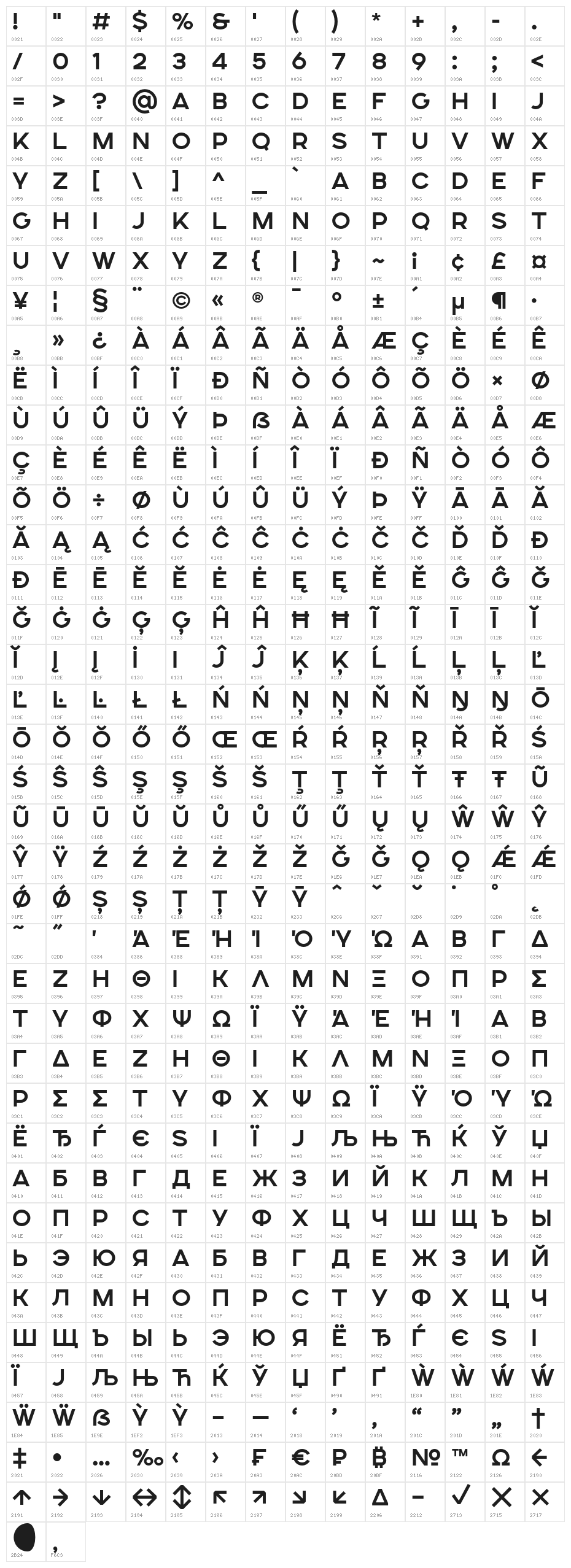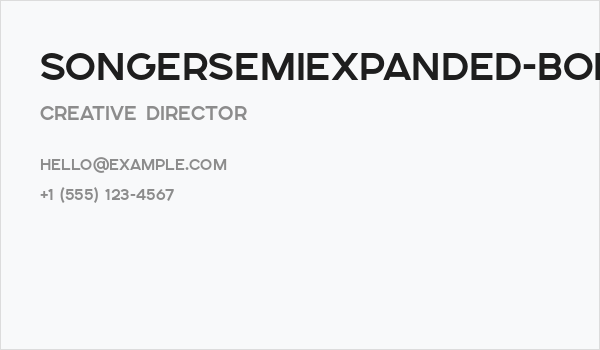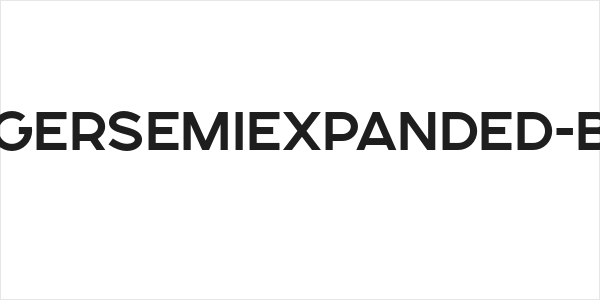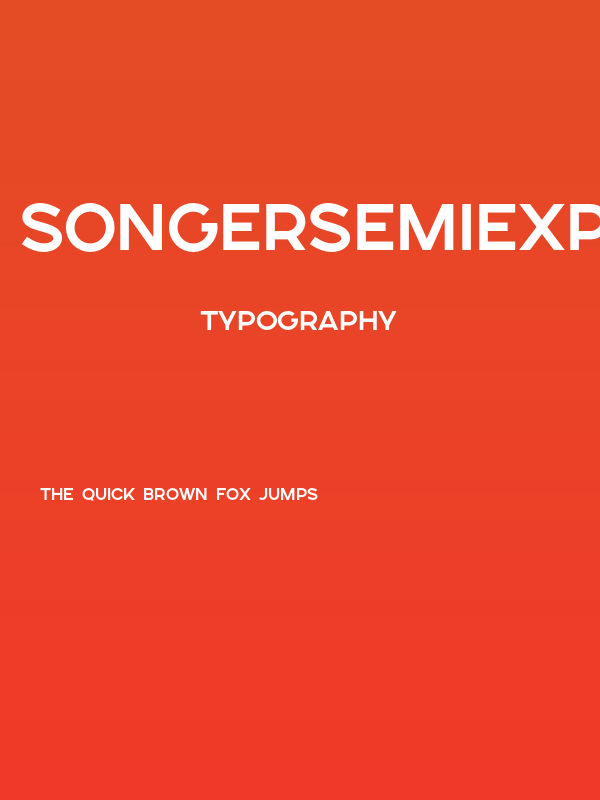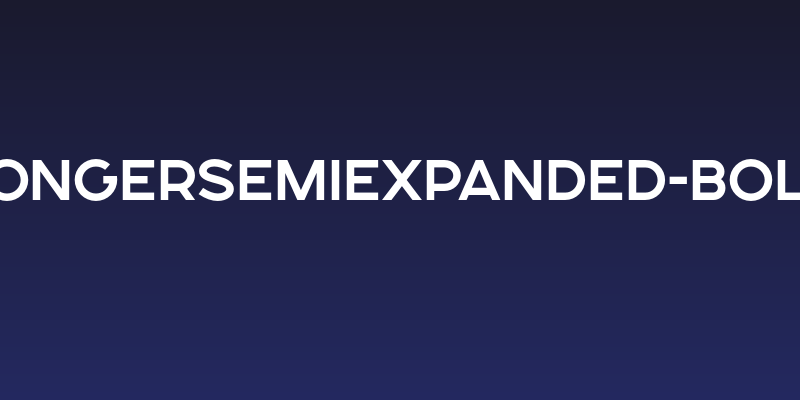
SONGERSemiExpanded-Bold Font
SONGERSemiExpanded-Bold Description
This font features a bold and modern sans-serif design with semi-expanded letterforms. The characters are clean and geometric, offering a strong presence that is both professional and approachable. The uppercase and lowercase letters maintain a consistent style, with rounded edges that soften the overall look. The numerals are clear and easy to read, making them suitable for various applications. Special characters are well-integrated, ensuring versatility in usage. The font's design is ideal for creating impactful headlines and branding materials.
Use CaseHeadlines, Logos, Branding
Proposed ProjectsIdeal for branding, advertising, headlines, and digital media projects.